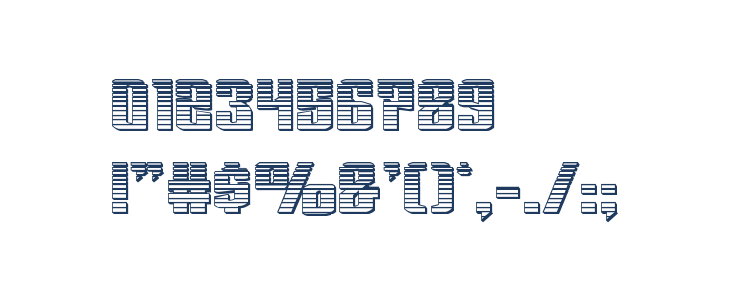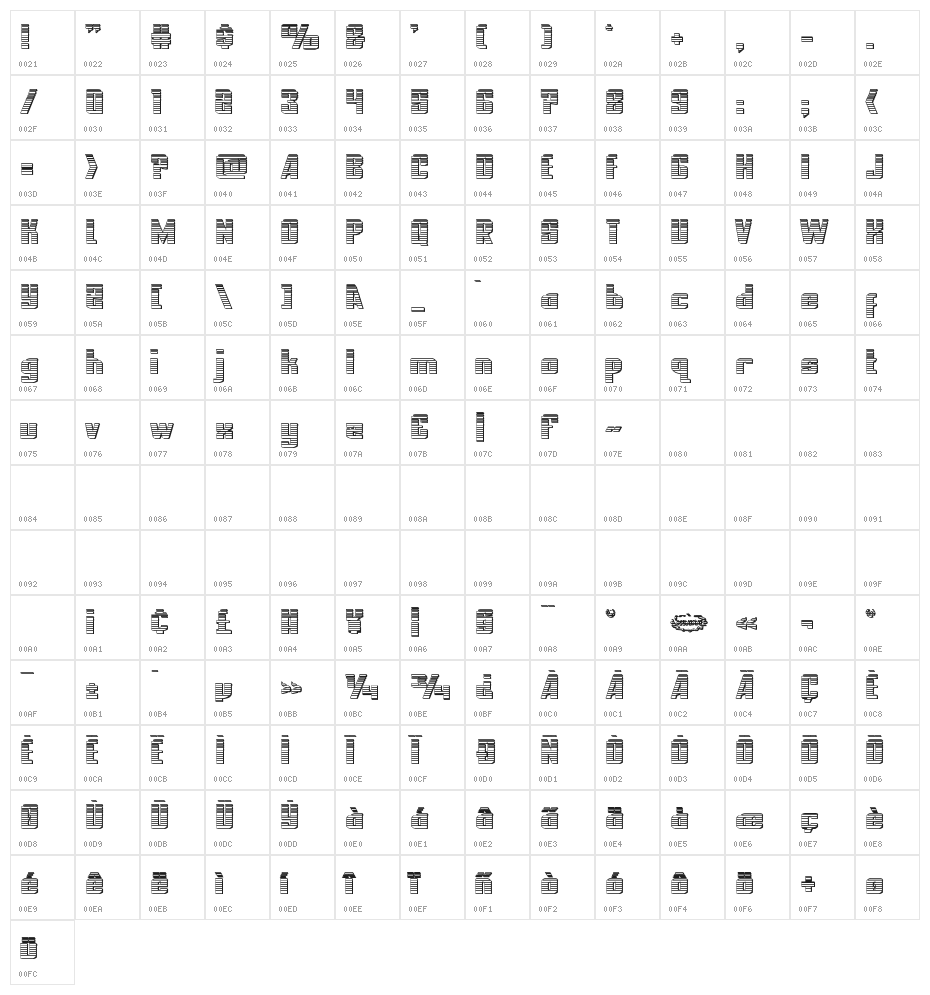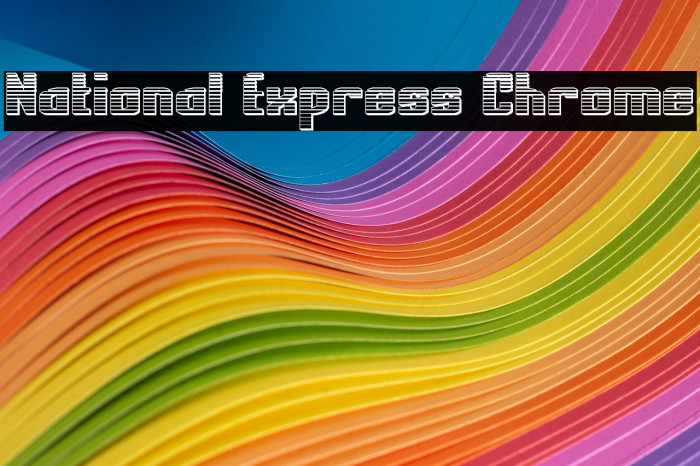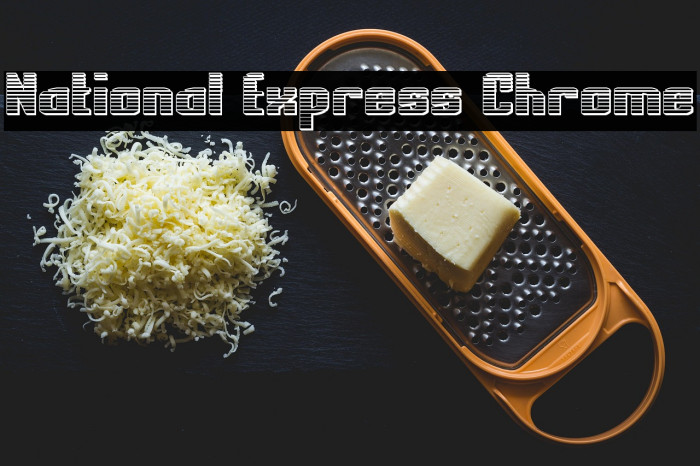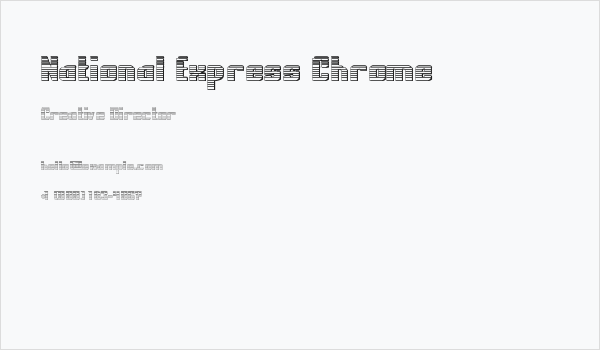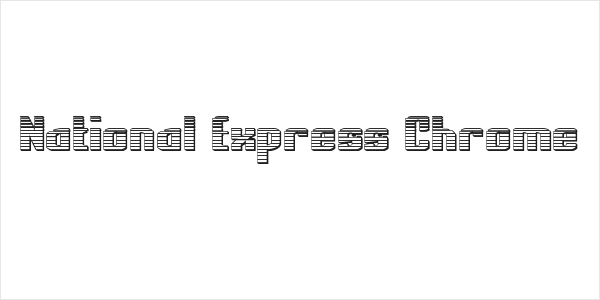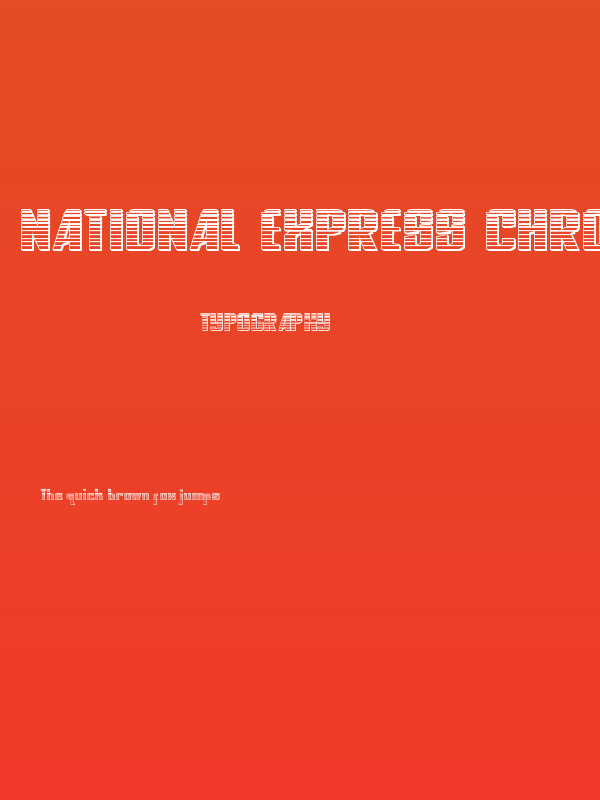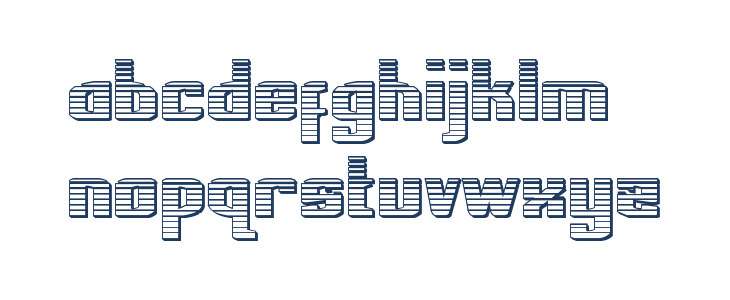
National Express Chrome Font
National Express Chrome Description
This font features a bold, geometric design with a distinct striped pattern running horizontally across each character. The uppercase and lowercase letters maintain a uniform width, creating a cohesive and structured appearance. The numerals and special characters follow the same design principles, ensuring consistency throughout. The font's unique style is reminiscent of retro and futuristic aesthetics, making it stand out in any design. Its bold presence and intricate detailing make it suitable for eye-catching displays.
| Overall Style | Futuristic, Retro |
| Proposed Projects | Ideal for retro-themed posters, futuristic branding, and eye-catching headlines. |